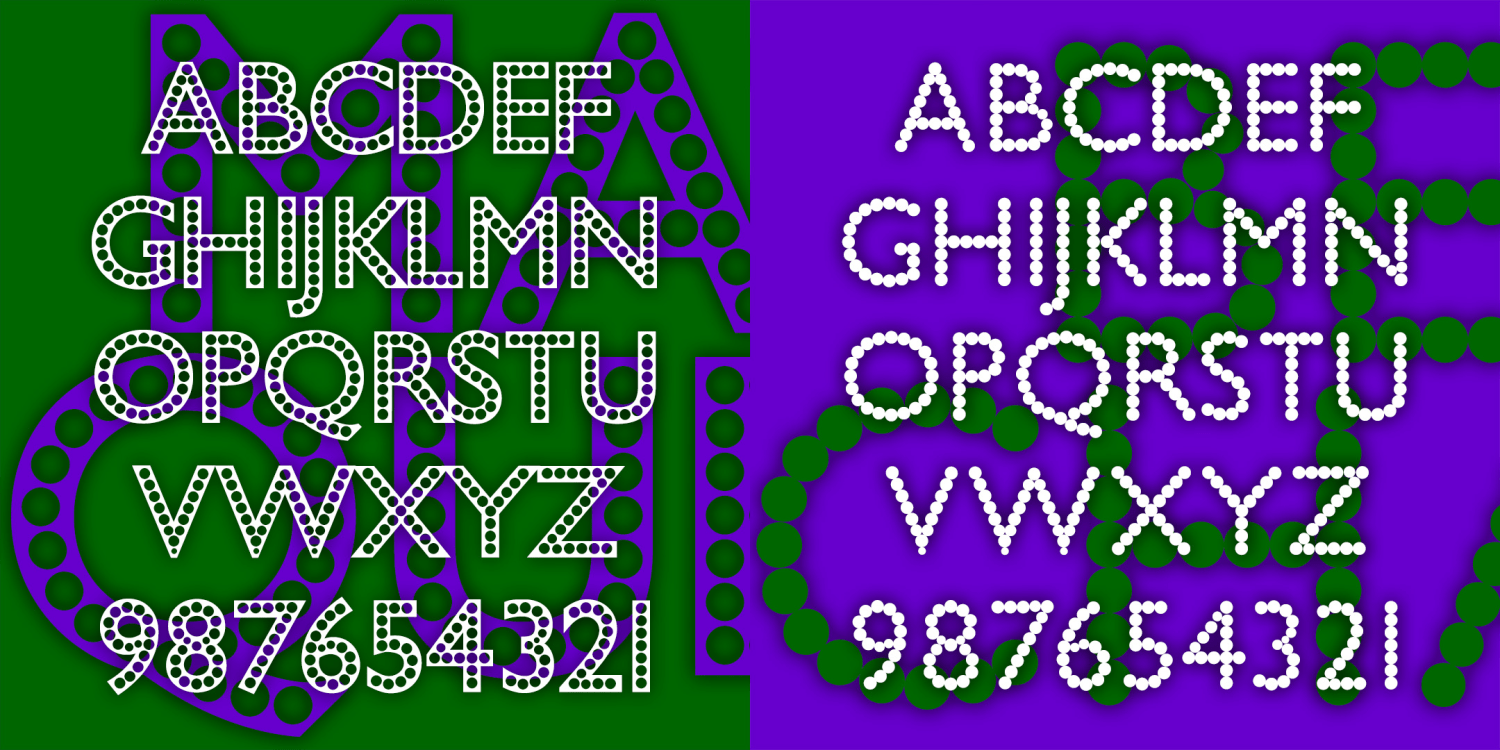
About Bead Chain & Marquee
BEAD CHAIN and MARQUEE are a pair of fonts that are made up of dots. BEAD CHAIN suggests a string of pearls while MARQUEE offers your name in lights. Inspired by a book jacket from the early 20th century, I've used the stately letter forms of Gill…